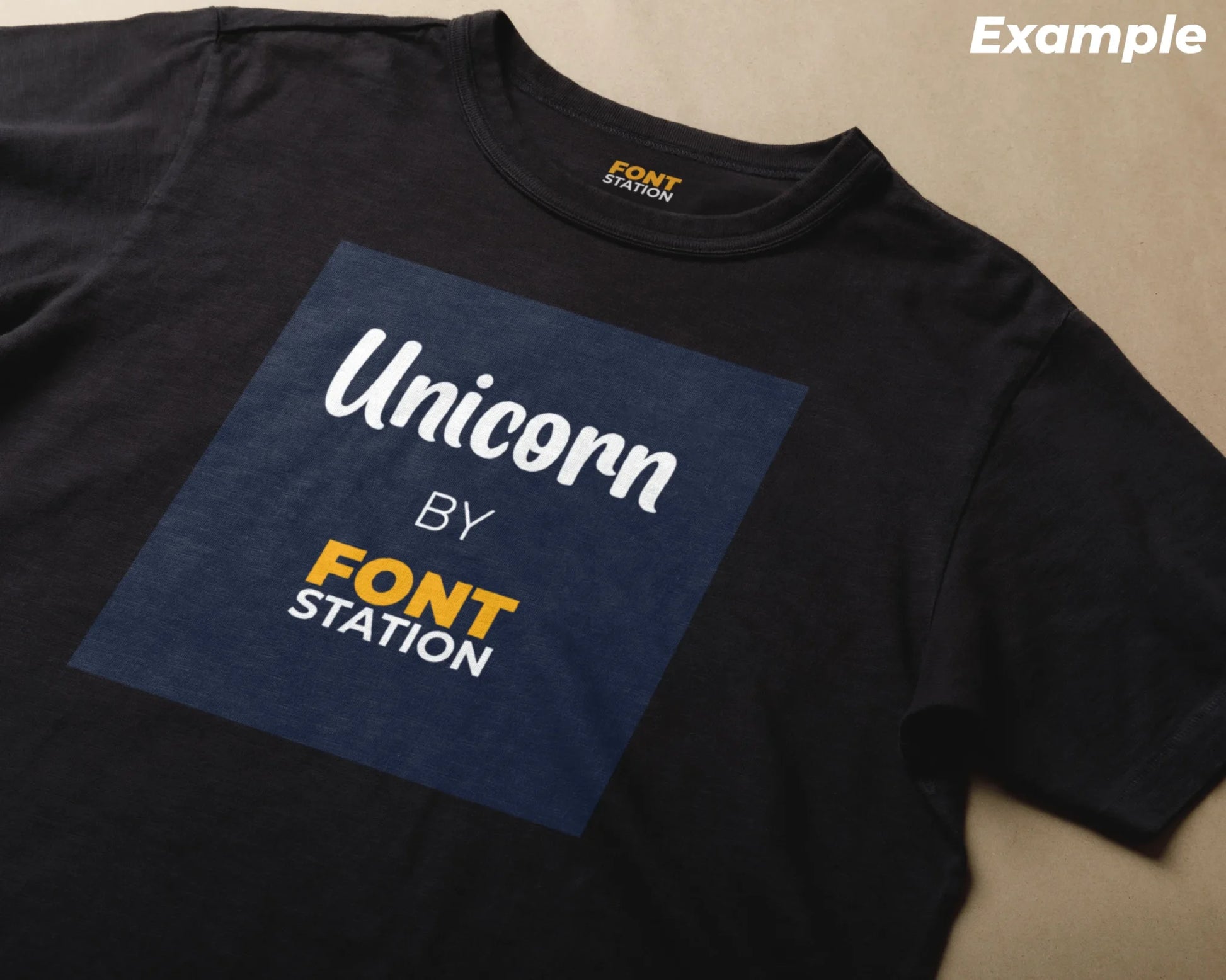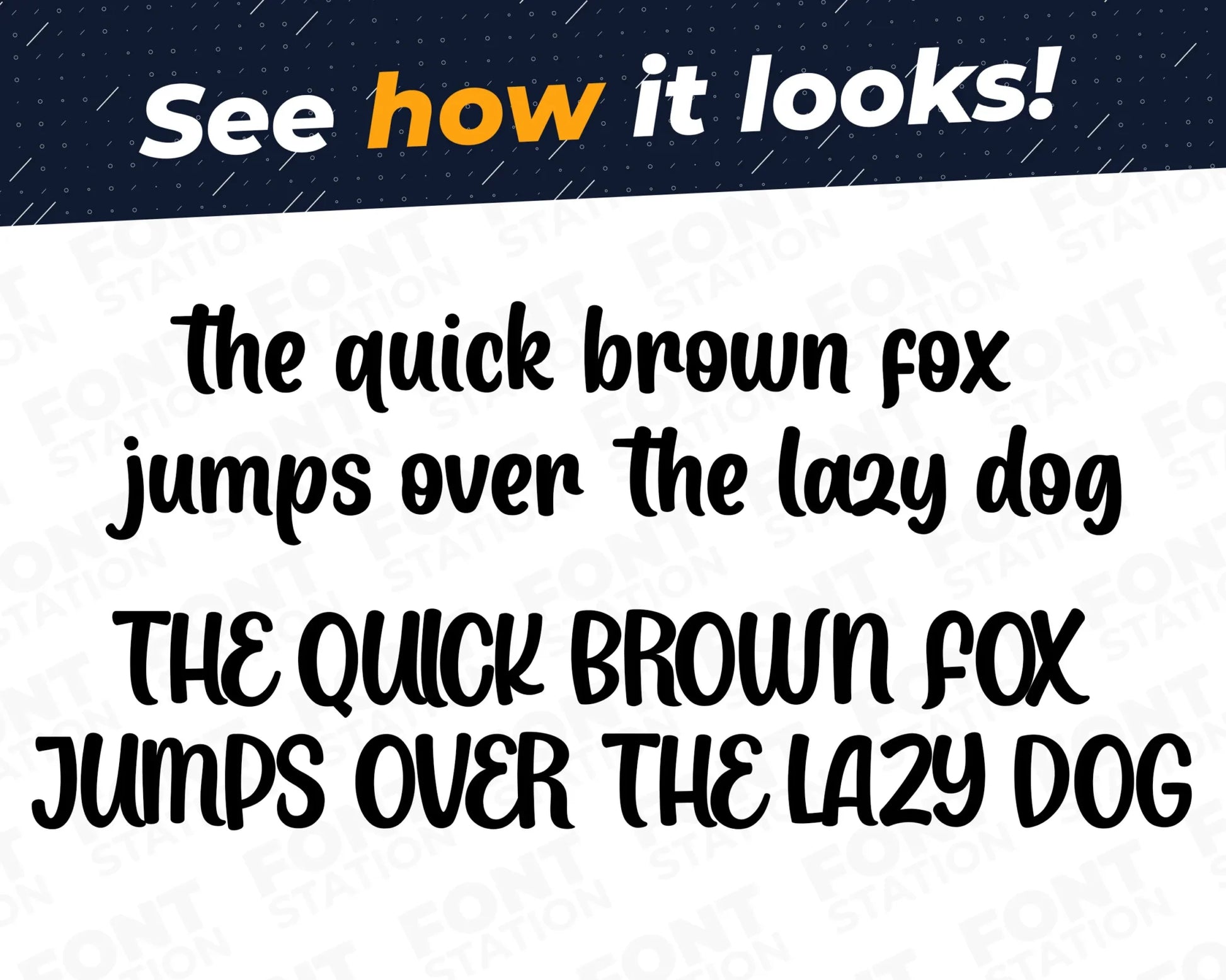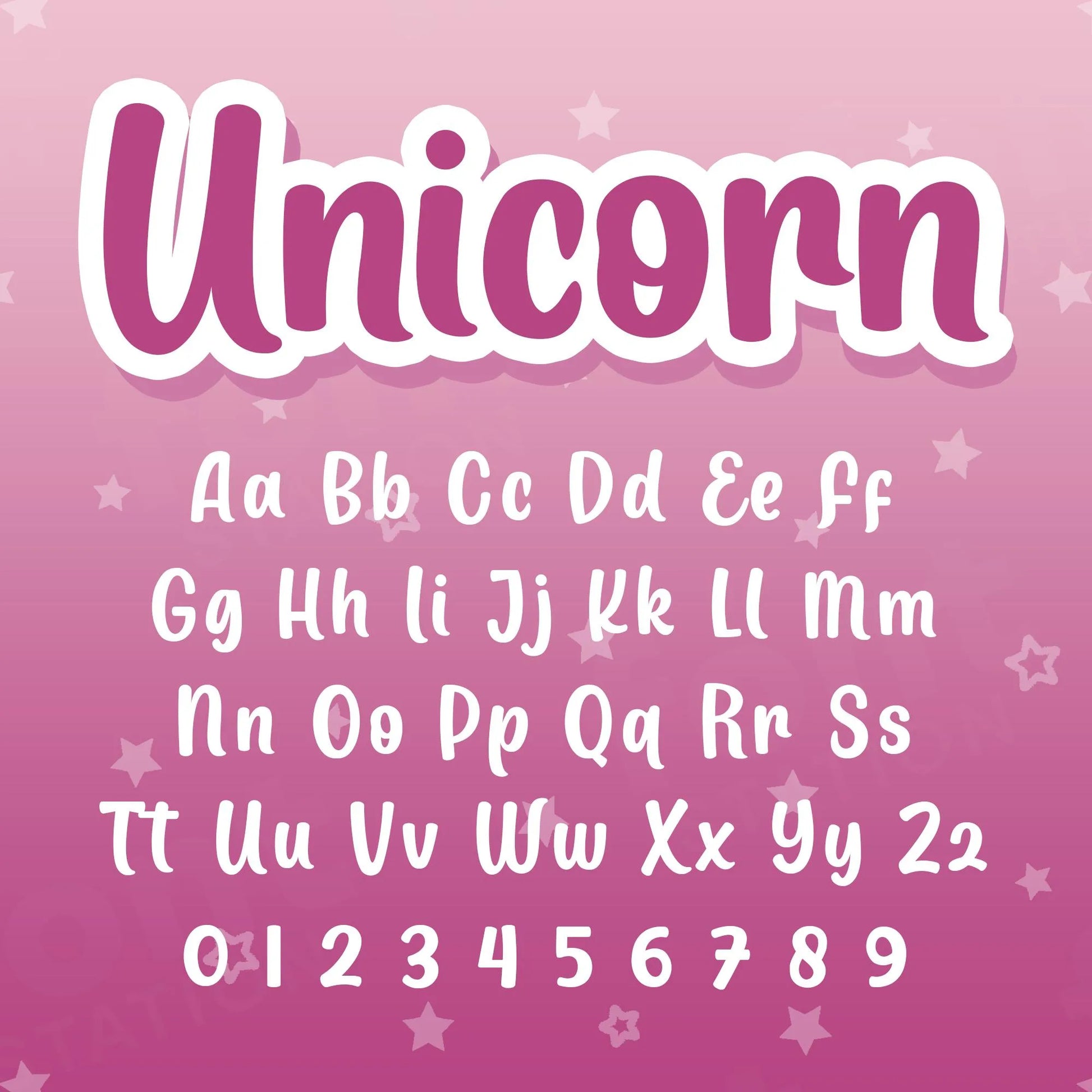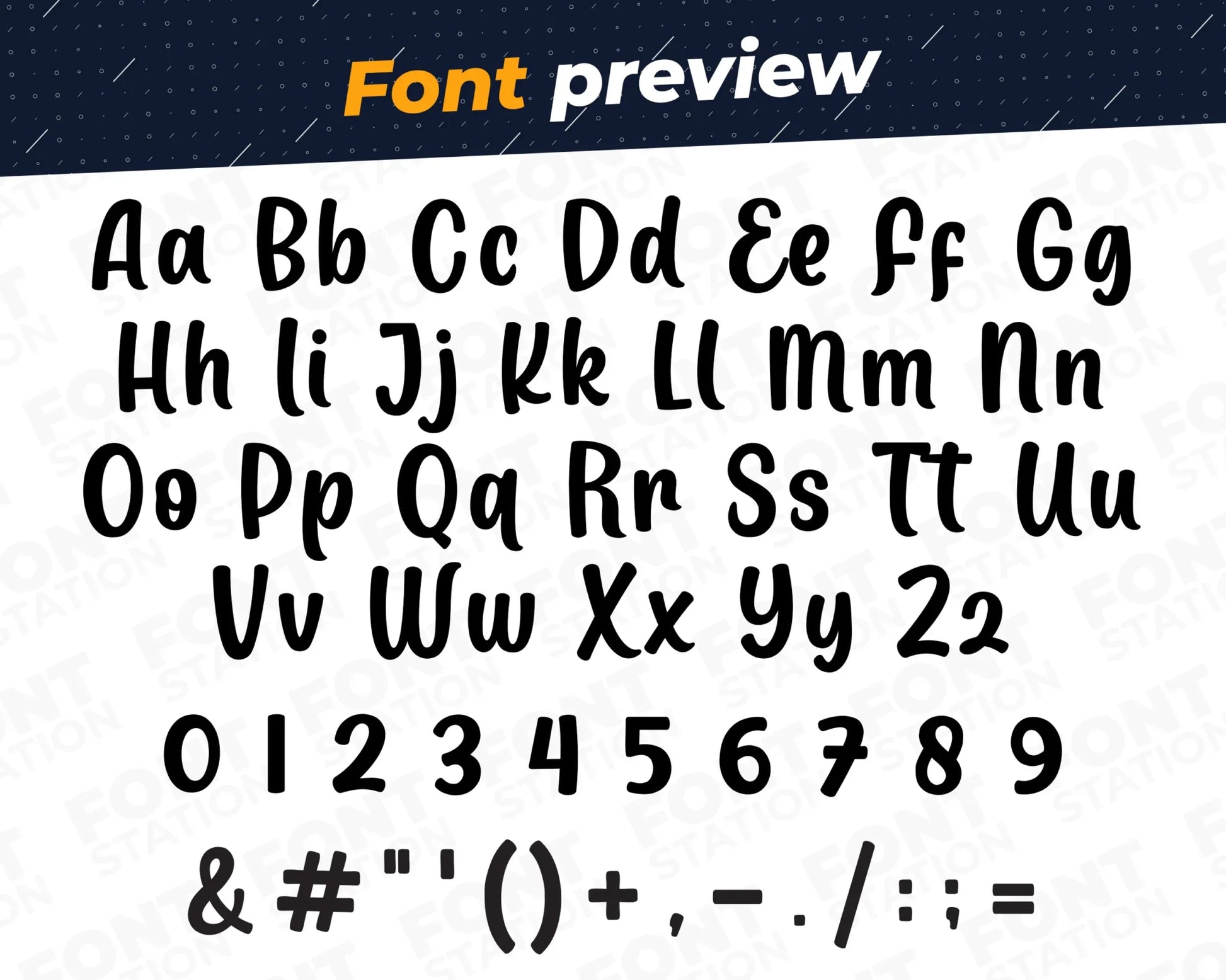
Unicorn Font - Princess Font
Our Unicorn typeface, inspired from Magical Princess font
Grab your computer, tablet or other device and start creating right now with our Unicorn font letters! Our Unicorn typography is inspired from Magical Princess Fairytale font, making it ideal for various digital creations (logo, word...), sublimation, cake toppers, stickers, event decorations, and more.